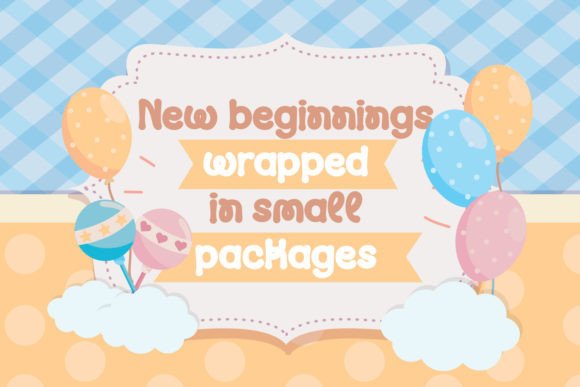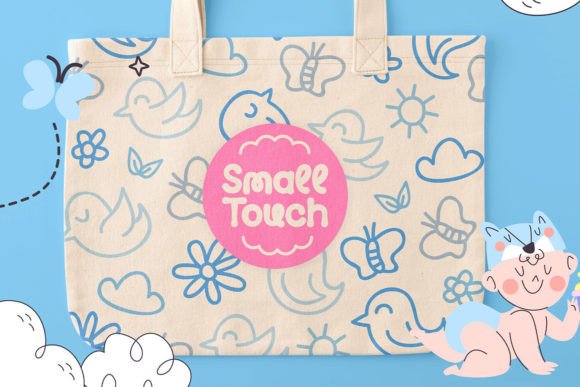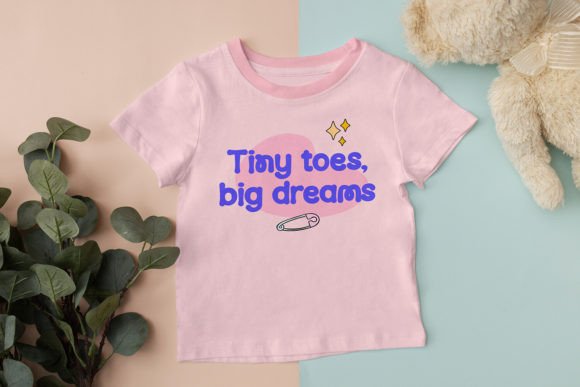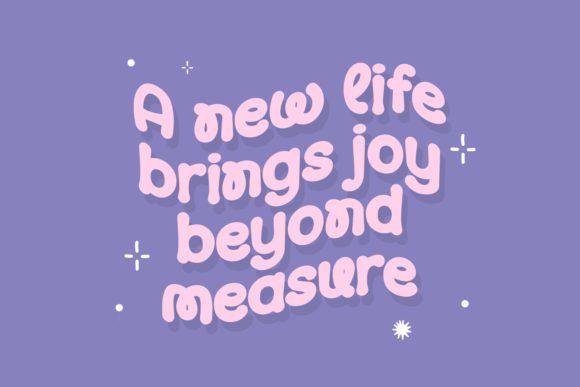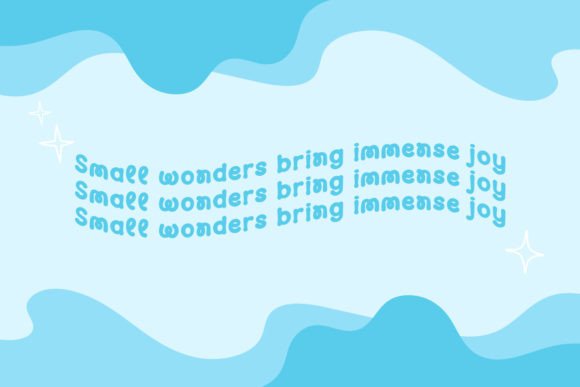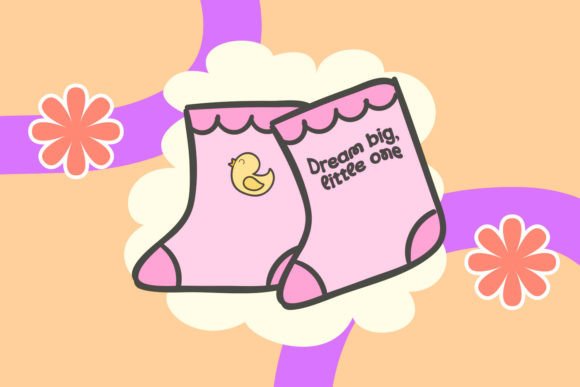
Introducing Grey Fantail Font: Whimsy and Playfulness in Every Letter
In the world of typography, fonts can evoke emotions, convey personalities, and make or break the aesthetic of a design project. For designers and crafters looking to infuse their work with a dash of playfulness and charm, the Grey Fantail font is here to take center stage. This display font is not just a collection of letters; it’s an experience, a mood, a statement that says, “I’m fun, I’m light, and I’m here to bring a smile to your face.”
The Inspiration Behind Grey Fantail
The Grey Fantail font draws its inspiration from the Grey Fantail bird, known for its graceful movements and agile flight. Just as the bird dances through the air with ease and fluidity, the Grey Fantail font brings a sense of movement and energy to your designs. Its letters seem to flutter across the page, embodying the very essence of joy and playfulness.
So, what makes Grey Fantail stand out from the myriad of fonts available? Here are a few key characteristics:
- Bold Weight: Grey Fantail boasts a bold weight that commands attention. It’s not a font that shyly hides in the background; it confidently takes center stage, making it perfect for headings, titles, and any design element you want to highlight.
- Low Contrast: Despite its boldness, Grey Fantail maintains a low contrast, which gives it a delightful lightness. This balance ensures that the font is assertive without being overpowering, making it versatile for various design applications.
- Fluidity and Agility: The design of Grey Fantail mirrors the fluid movements of its avian namesake. The letters flow smoothly into one another, creating a sense of motion and energy.
Uses for Grey Fantail Font
The versatility of Grey Fantail makes it suitable for a wide range of projects. Here are some ideas to get you started:
- Branding and Logos: Add a playful touch to your brand’s identity with a logo that uses Grey Fantail. It’s perfect for businesses that want to convey a sense of fun and approachability.
- Posters and Flyers: Whether you’re advertising an event, a product, or a service, Grey Fantail can help your message stand out. Its bold and playful nature makes it ideal for titles and headings.
- Digital Media: From social media graphics to website headers, Grey Fantail can add a whimsical touch to your digital content, making it more engaging and memorable.
- Crafting and DIY Projects: For crafters and DIY enthusiasts, Grey Fantail can be used in a variety of projects, from handmade cards and invitations to custom signage and decor.
Why Choose Grey Fantail?
In a digital age where fonts are plentiful, why should Grey Fantail be your go-to choice for adding whimsy and playfulness to your projects? The answer lies in its unique blend of boldness and lightness, combined with its inspiring backstory. Grey Fantail is more than just a font; it’s a way to communicate a sense of joy and dynamism.
Grey Fantail is a display font that promises to bring a touch of whimsy and mischief to your designs. With its bold weight, low contrast, and fluid design inspired by the Grey Fantail bird, it’s the perfect choice for designers and crafters looking to add a playful charm to their projects. Whether you’re working on branding, advertising materials, digital content, or crafting and DIY projects, Grey Fantail is sure to leave a lasting impression. So why settle for ordinary when you can make your designs dance with the extraordinary Grey Fantail font?